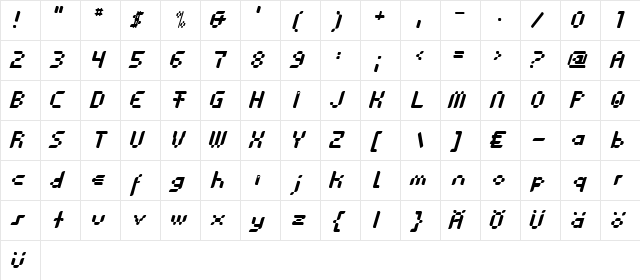
Anasthesia Italic
Design Context for Anasthesia Typeface
Anasthesia takes a measured approach to typography — its balanced proportions and neutral character make it a reliable workhorse for both digital and print work. The slanted form adds forward momentum and visual energy.